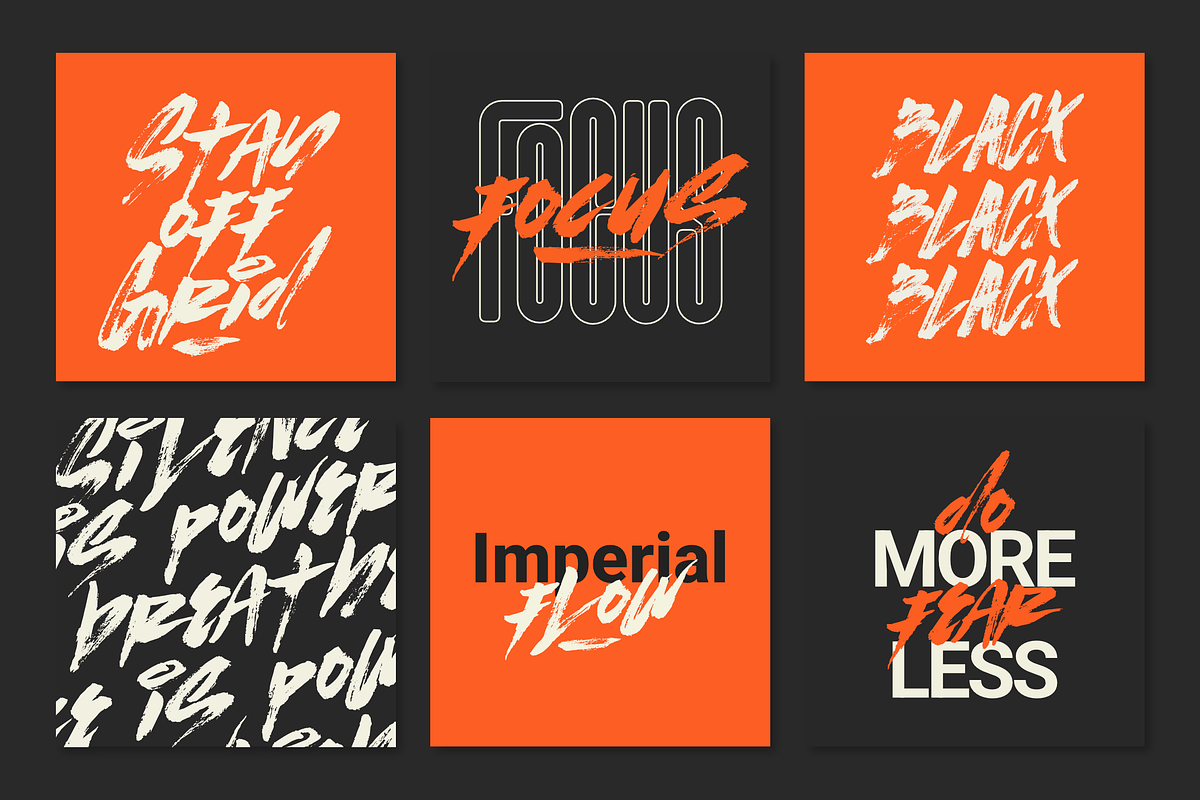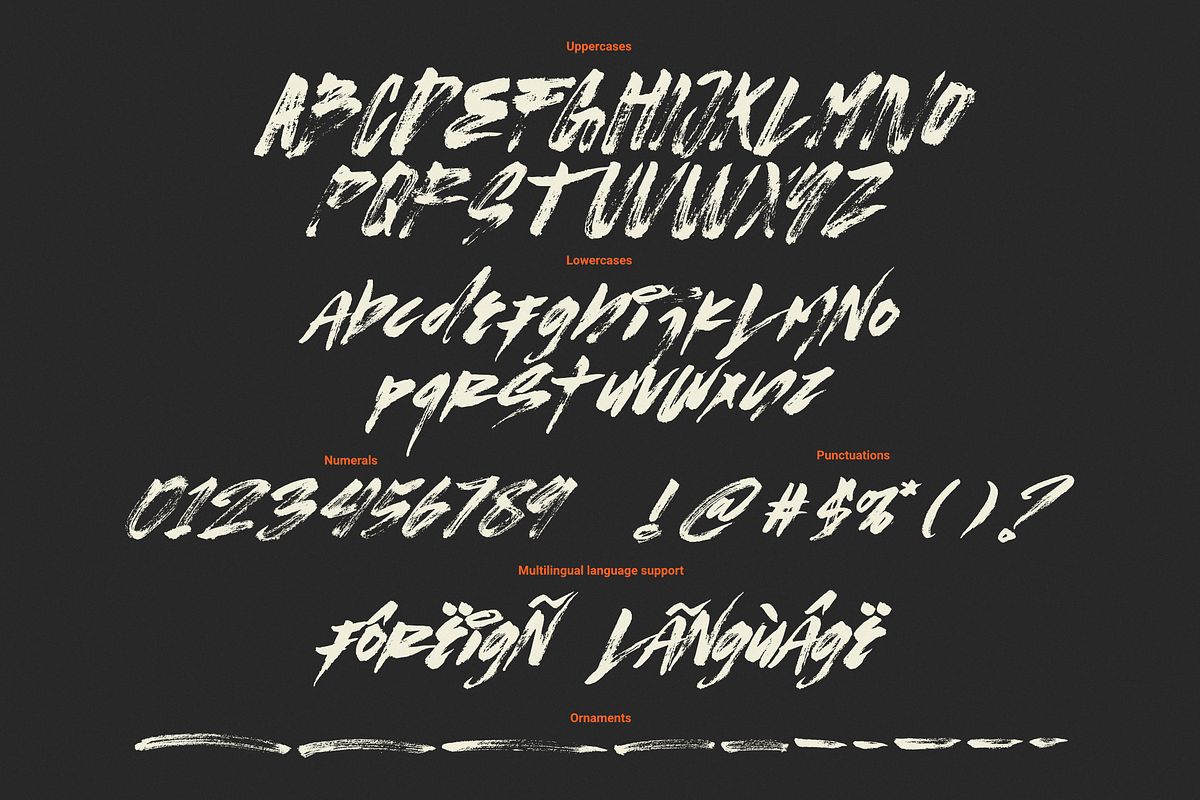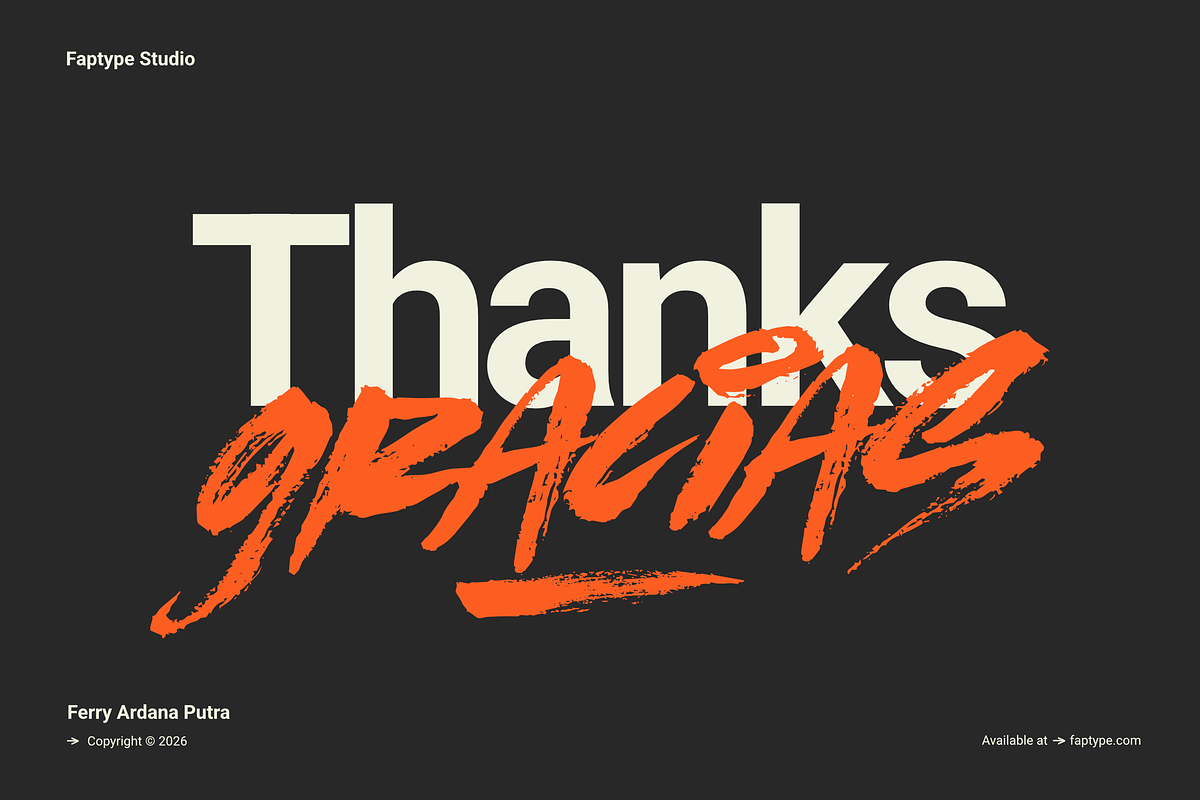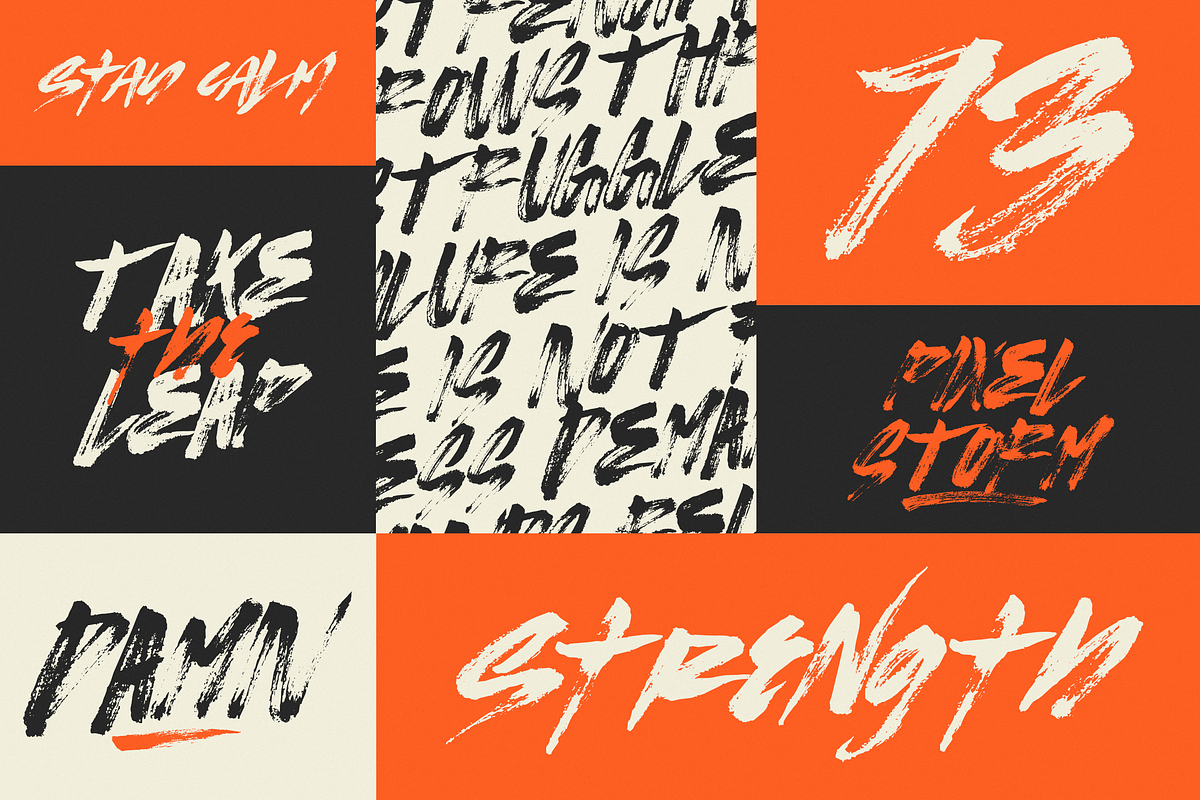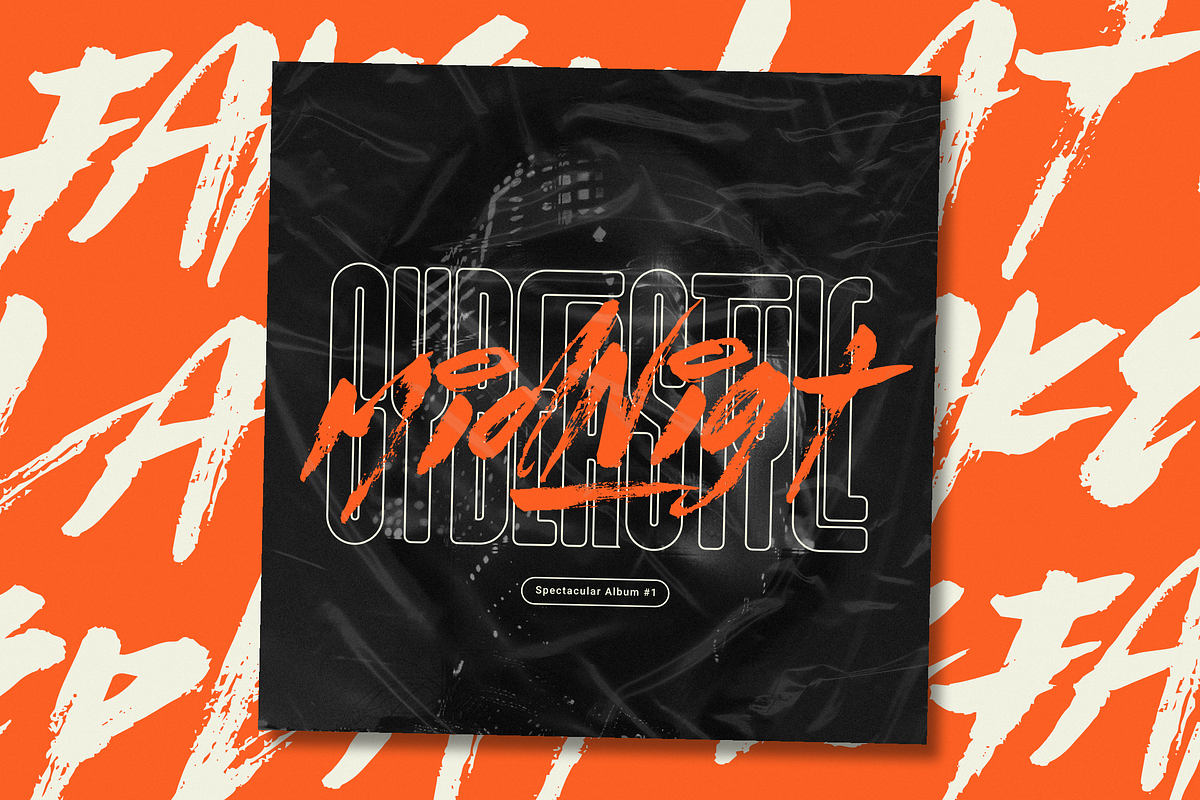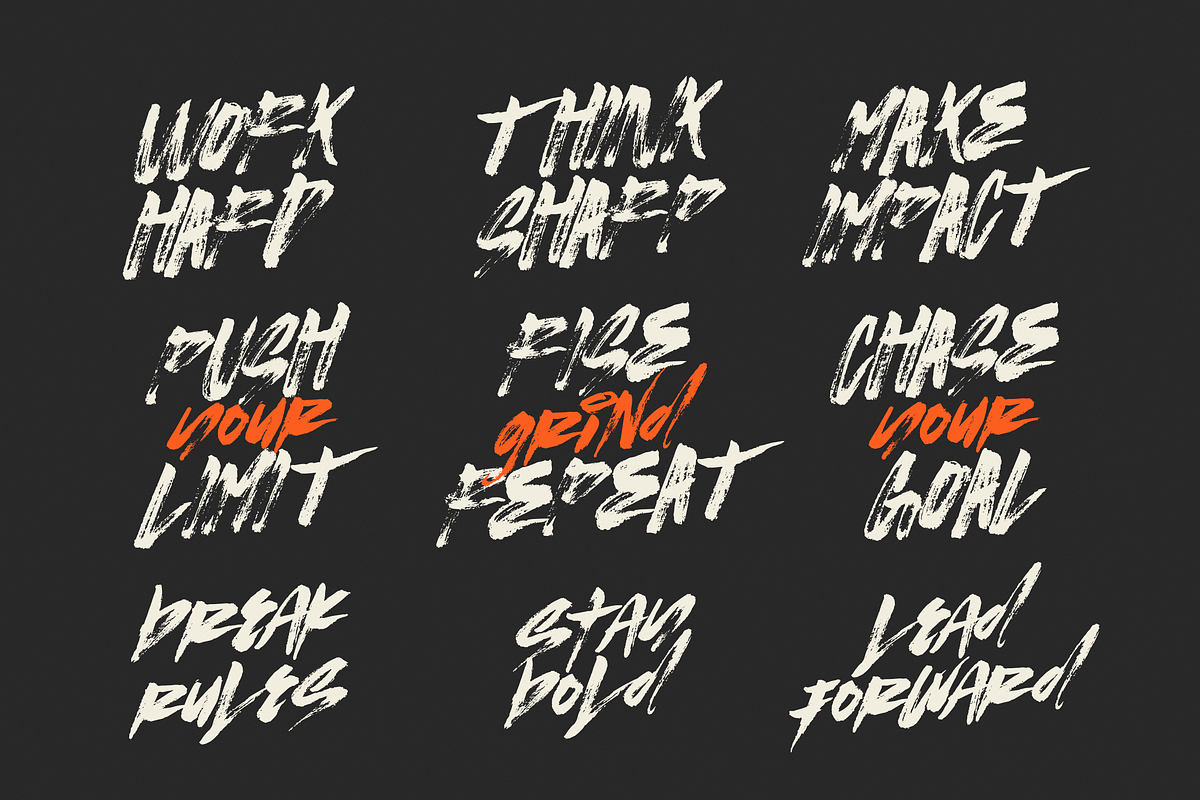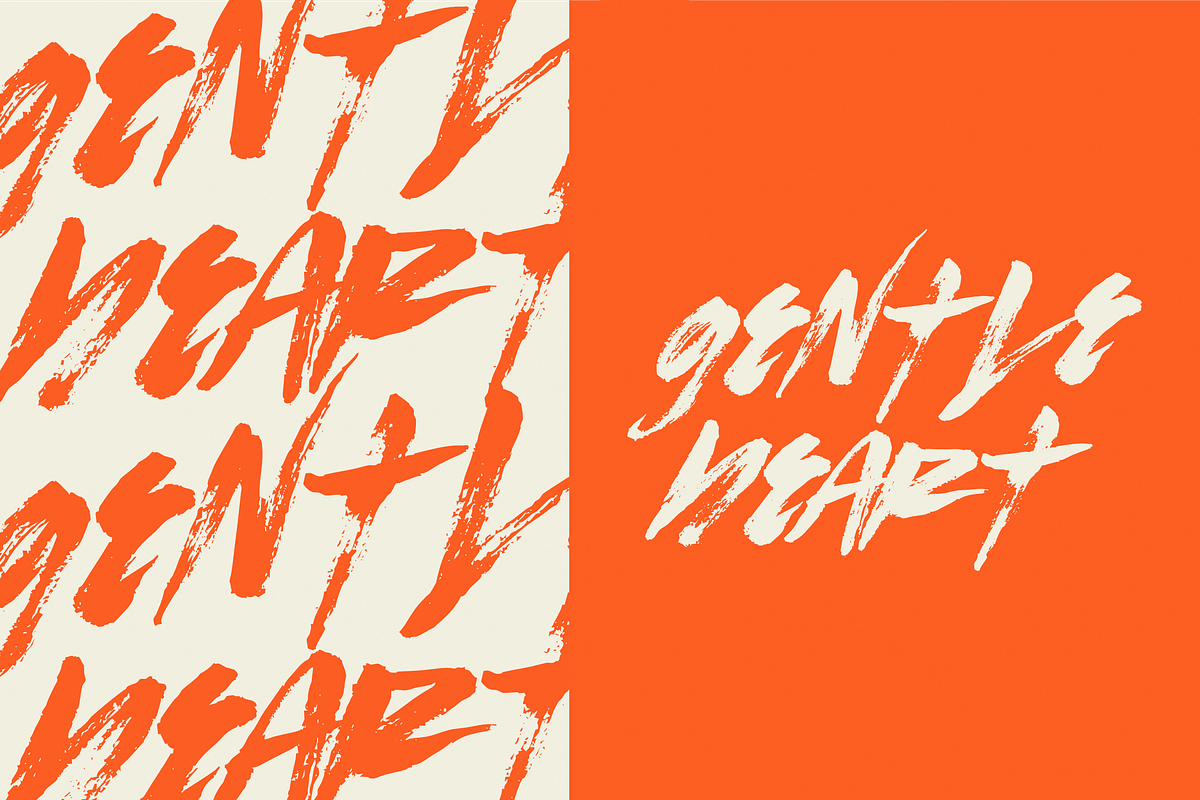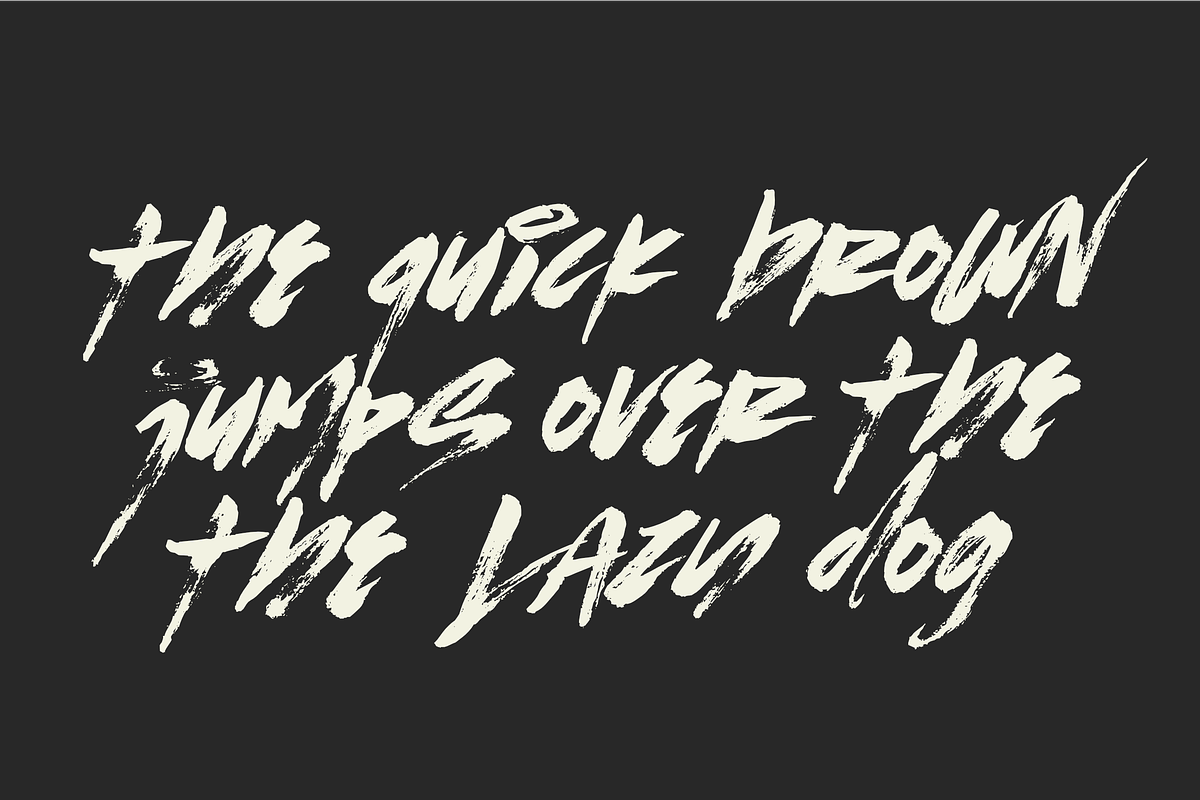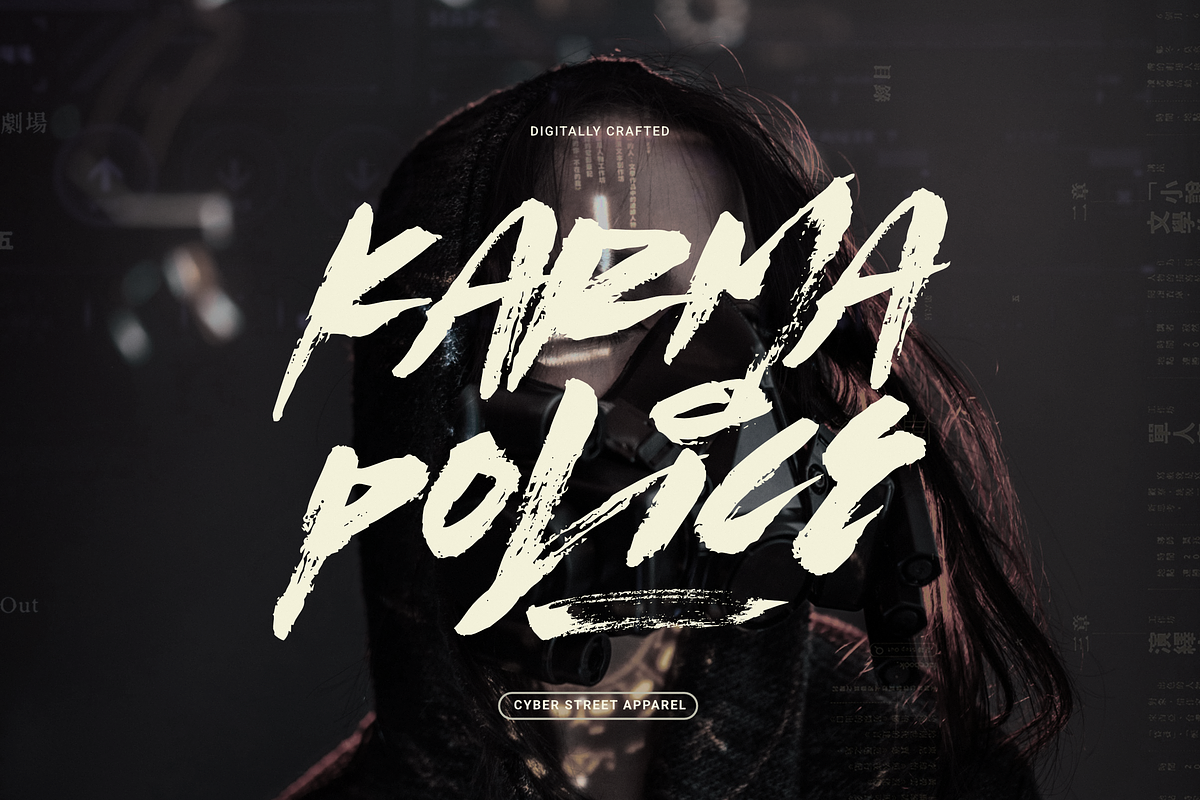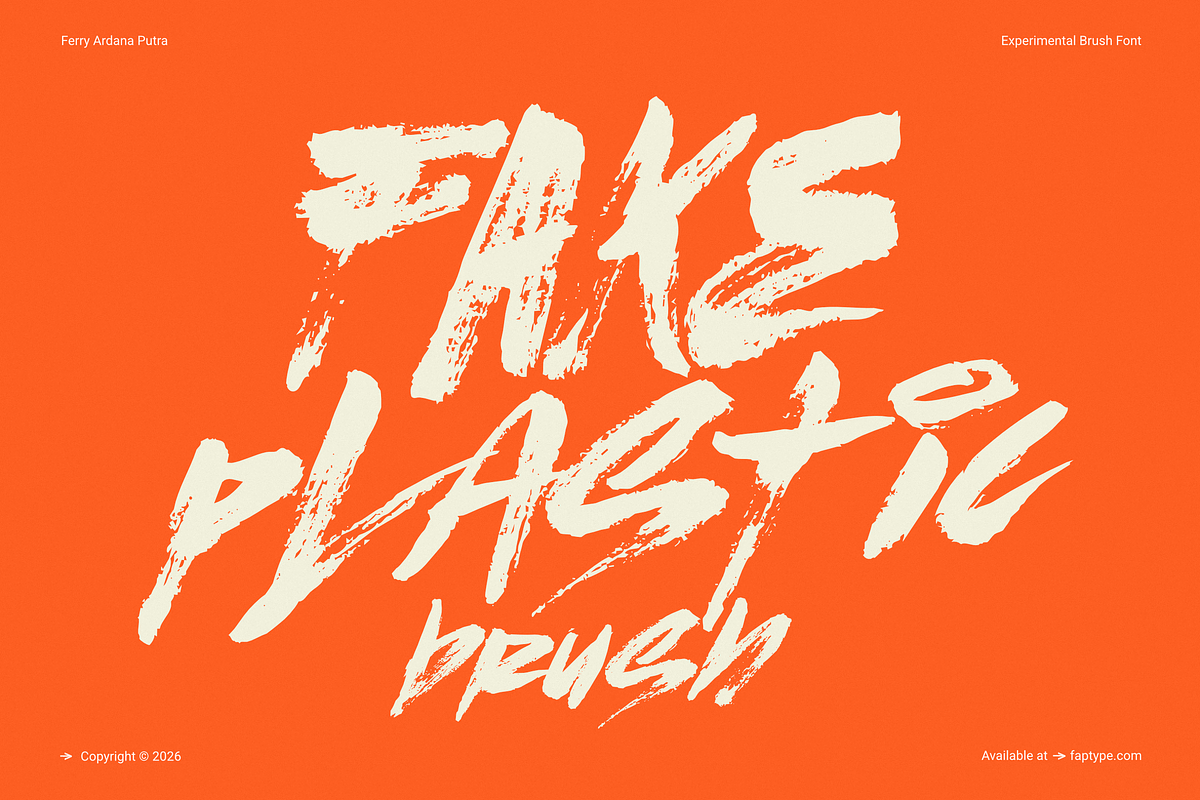
Fake Plastic | Handpainted Brush
Fake Plastic Brush is a bold and expressive handpainted brush font created using real brush and ink, then carefully scanned and digitized to preserve its authentic texture and raw brush energy. This font captures the imperfect beauty of hand-painted strokes with a strong artistic character.
Unlike digital brush simulations, Fake Plastic Brush delivers real ink flow, pressure variation, and organic imperfections—making it perfect for designers who want a genuine handcrafted look.
Handpainted Brush Font With Real Ink Texture
Fake Plastic Brush is designed as a true handpainted brush font, combining traditional painting techniques with modern typography needs. Each letter reflects real hand movement, resulting in dynamic strokes and natural rhythm.
The textured brush strokes give this font a bold and slightly rough personality, ideal for designs that need energy, attitude, and artistic expression.
Authentic Handpainted Style
This handpainted brush font was created using real brush and ink, then scanned to maintain:
- Natural brush pressure
- Organic stroke movement
- Raw ink texture
- Imperfections that enhance authenticity
Every detail helps deliver a truly handcrafted feel.
Features of Fake Plastic Brush Font:
- Aternates Included
- Dry brush swashes included